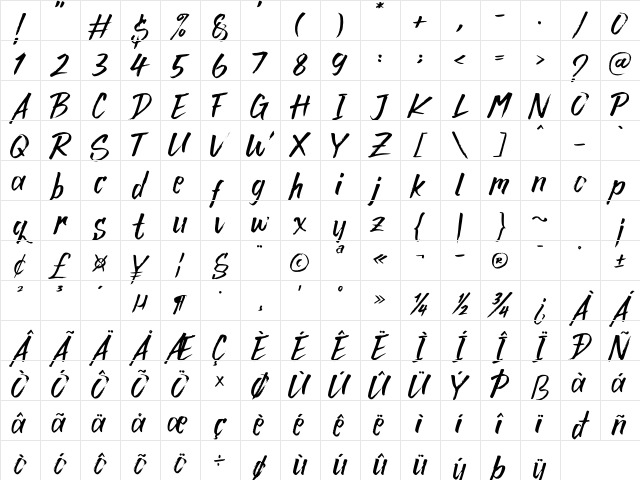
Rocky Brush Regular
Foundry: Letterena Studios
Designer: Heru Utama Putra
Rocky Brush Family
Design Context for Rocky Brush
Rocky Brush flows with the natural rhythm of handwritten lettering, making it ideal for designs that call for warmth and personal expression.
Font Pairing: Combine Rocky Brush with a simple geometric sans for maximum contrast - the tension between flowing curves and clean structure is a classic typographic pairing.
Pro Tip: Use Rocky Brush for short runs of text - names, titles, or taglines. Extended body copy in script faces tires the eye quickly.